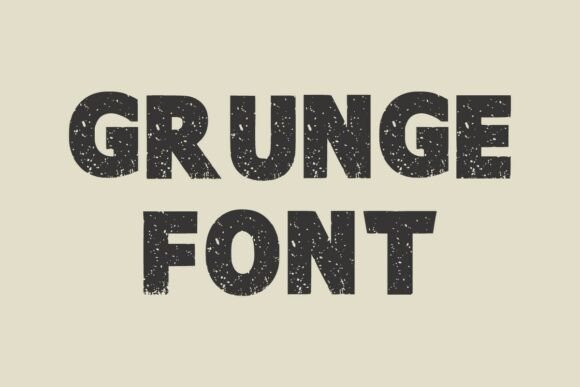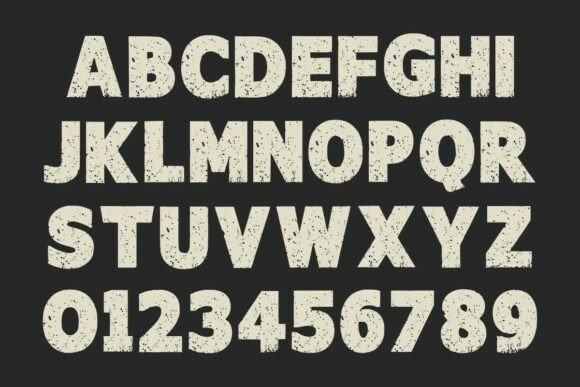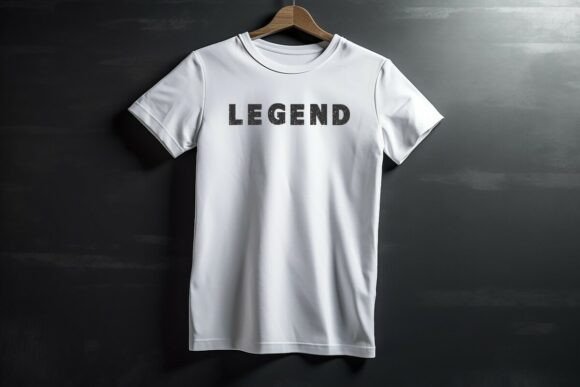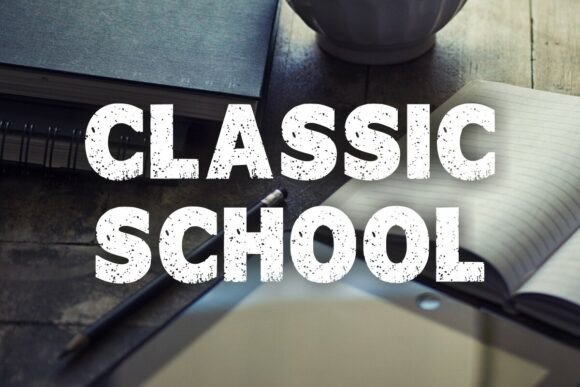
Introduction to Retrojersey Regular Font
Retro Jersey is a bold, grunge display font with a raw, textured finish that feels perfectly worn and rugged.
Designed to grab attention, its distressed letterforms are ideal for posters, album covers, retro branding, and urban-inspired visuals Whether youโre crafting something vintage or just want bold with an edge, this font delivers gritty character and strong presence.